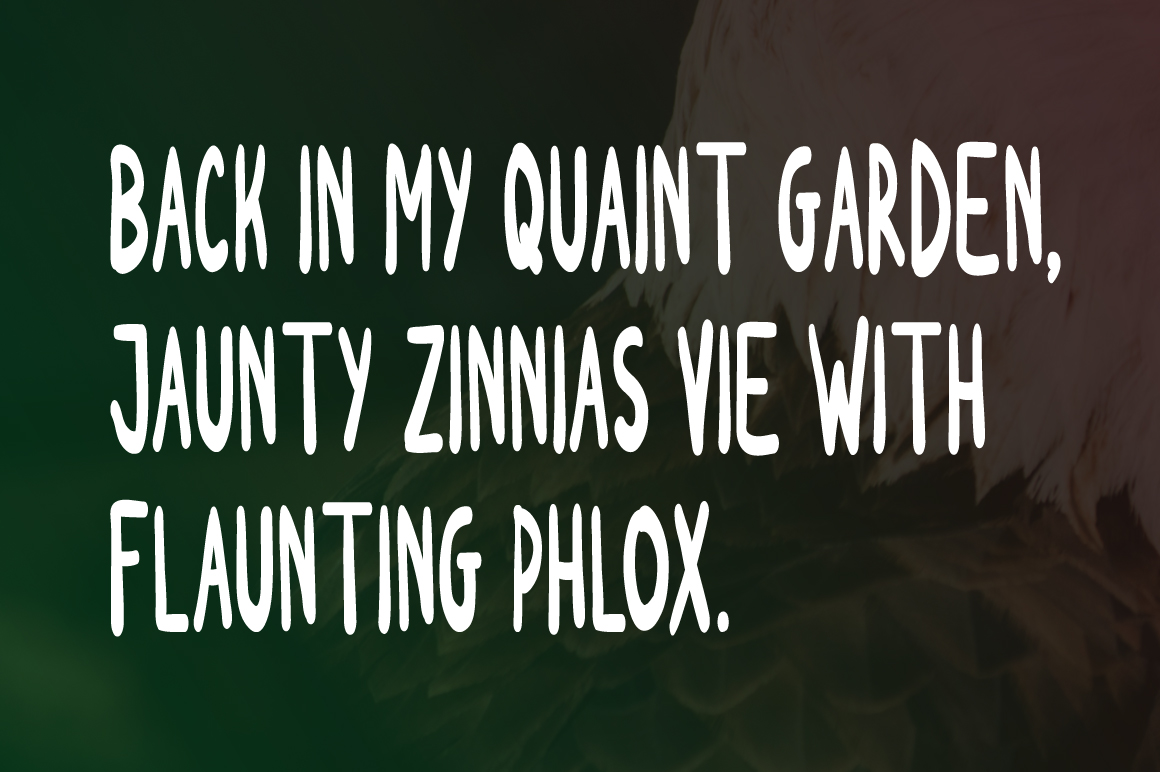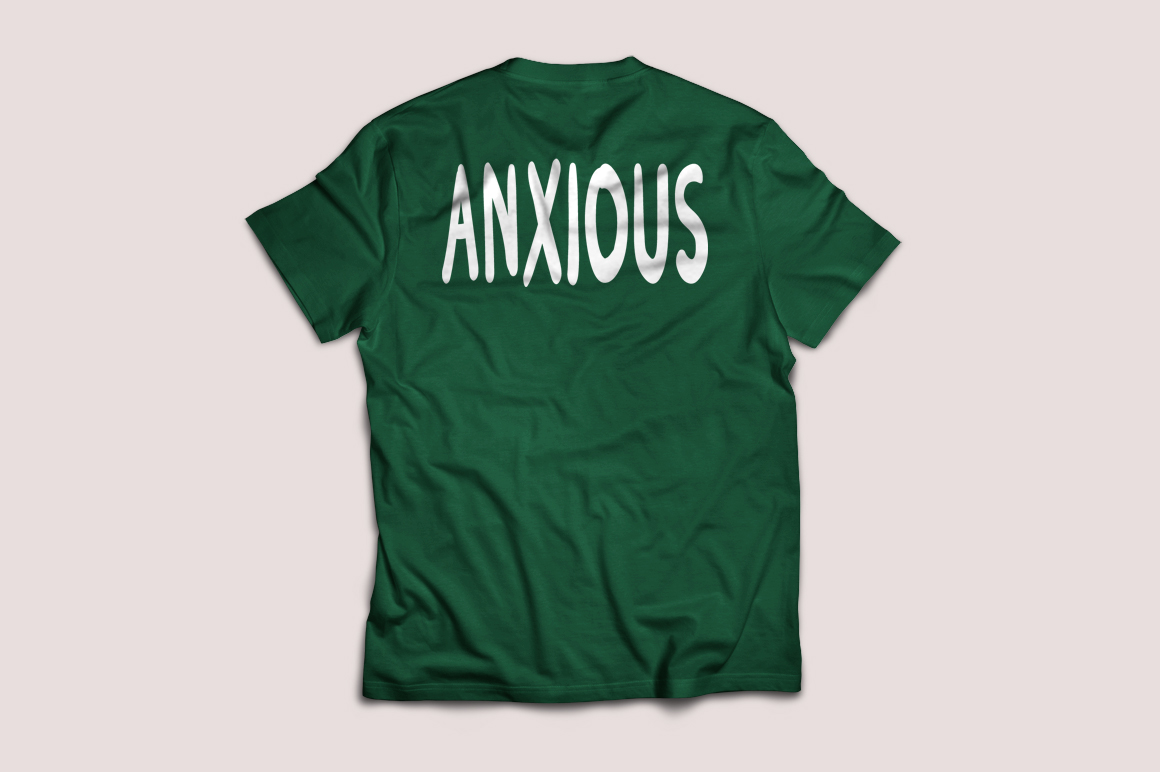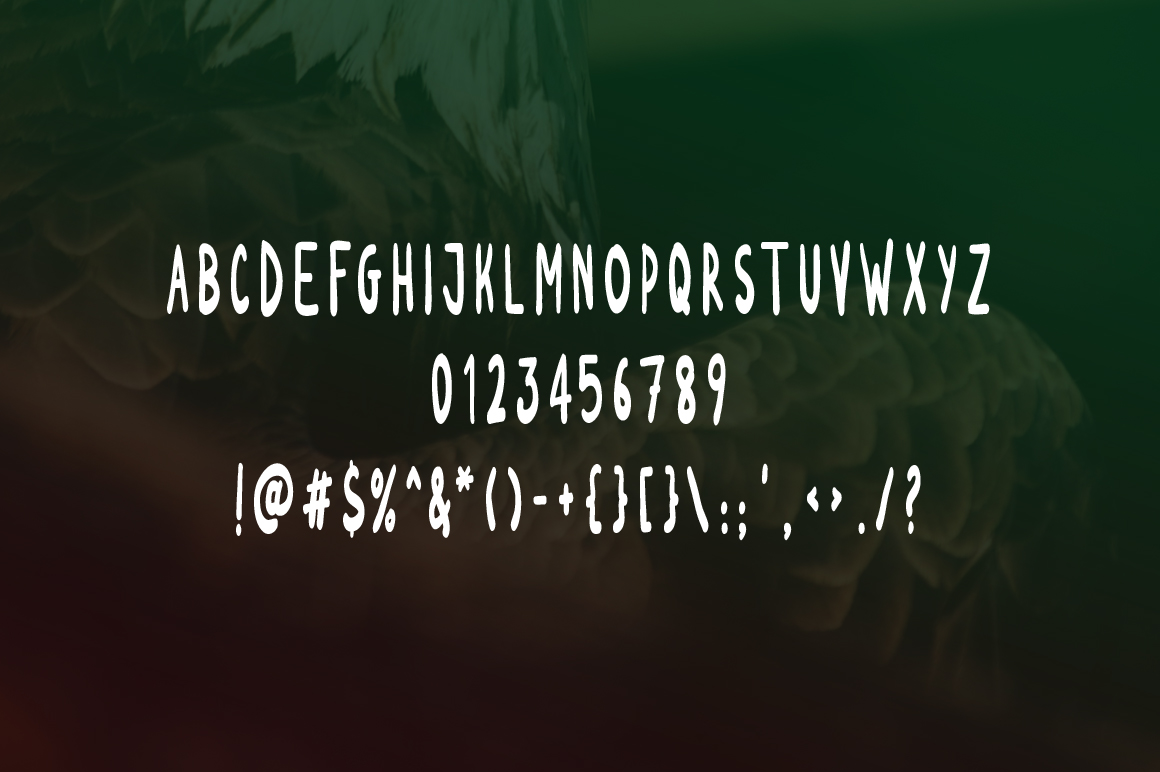
Introducing Anxious Font: A Fresh Hand-Drawn Display for Creative Projects
In the world of typography, fonts play a crucial role in conveying emotions and setting the tone for various projects. For designers and crafters looking for a unique and expressive font to elevate their work, Anxious Font is an excellent choice. This fresh hand-drawn display font is perfect for a wide range of projects, from branding and advertising to packaging and digital media.
What Makes Anxious Font Stand Out?
Anxious Font boasts a distinctive, hand-drawn style that sets it apart from more traditional fonts. Its unique characteristics make it an ideal choice for designers seeking to add a personal touch to their work. Here are some key features that make Anxious Font a standout:
- Hand-drawn with love: Each letter has been carefully crafted by hand, giving the font a warm, organic feel.
- Display font: Anxious Font is designed to make a statement, making it perfect for headlines, titles, and other display purposes.
- Versatile: This font works well in various projects, including branding, advertising, packaging, and digital media.
- Easy to read: Despite its unique style, Anxious Font remains highly legible, ensuring your message gets across clearly.
Use Cases for Anxious Font
Anxious Font’s versatility makes it suitable for a wide range of applications. Here are some ideas to get you started:
- Branding and logos: Create a memorable brand identity with Anxious Font’s unique, hand-drawn style.
- Advertising and marketing: Use Anxious Font to grab attention and add a touch of personality to your ads and marketing materials.
- Packaging design: Stand out on store shelves with eye-catching packaging that features Anxious Font.
- Digital media: Add a personal touch to your website, social media, or email campaigns with Anxious Font.
Tips for Using Anxious Font Effectively
To get the most out of Anxious Font, follow these tips:
- Use it sparingly: Anxious Font is designed to make a statement, so use it sparingly to avoid overwhelming your design.
- Pair it with complementary fonts: Combine Anxious Font with other fonts to create visual interest and hierarchy.
- Experiment with colors and textures: Add depth and emotion to your design by experimenting with different colors and textures.
| Font Name | Anxious Font |
| Author | Contour Fonts |
Anxious Font is a fresh, hand-drawn display font that’s perfect for designers and crafters looking to add a unique touch to their projects. Its versatility, legibility, and distinctive style make it an excellent choice for a wide range of applications. By incorporating Anxious Font into your design workflow, you’ll be able to create engaging, memorable, and effective designs that stand out from the crowd.